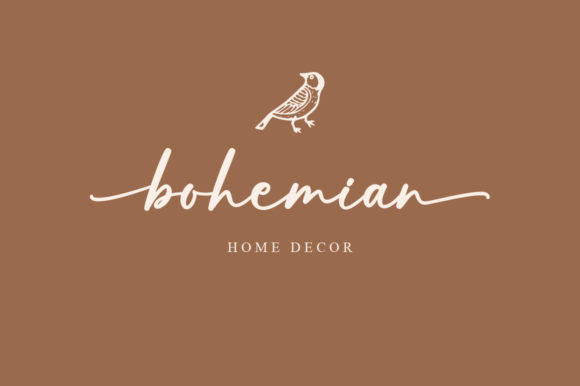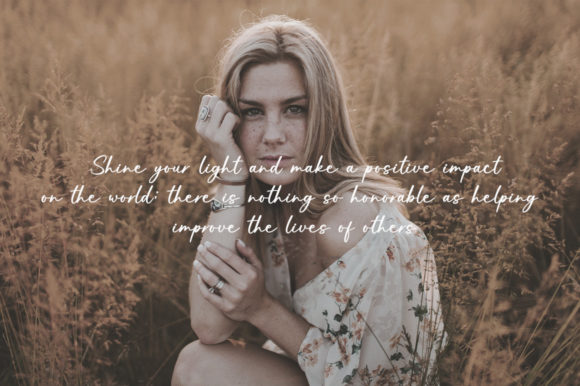
Shine Bright Font
db-ku.com - Script & Handwritten -- Shine Bright is a lovely and timeless handwritten font. It is the best choice for creating eye catching logos, branding and quotes. This font is PUA encoded which means you can access all of the glyphs and swashes with ease!